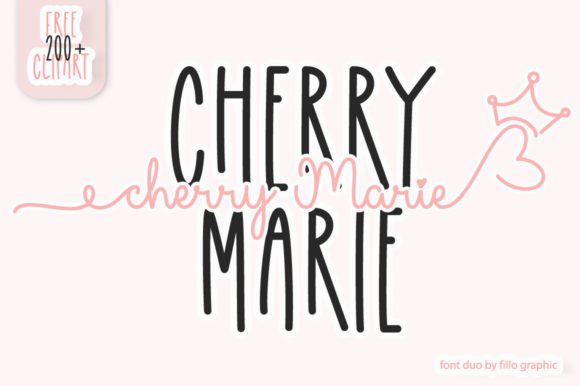
Introducing Cherry Marie Font, the ultimate font for digital display that will bring your design projects to life! Created by the talented Fillo Graphic, this font family is a game-changer in the world of typography.
Cherry Marie Font offers the perfect blend of elegance and versatility with its unique duo font design. Featuring both script and sans serif styles, this font allows you to experiment and create stunning compositions that will captivate your audience.
One of the standout features of Cherry Marie Font is its PUA encoding. This means that you can effortlessly access a wide range of incredible glyphs and ligatures, elevating your designs to a whole new level. Let your creativity run wild as you explore the endless possibilities this font offers.
Whether you're working on a website, social media graphics, branding materials, or any other digital project, Cherry Marie Font is the answer to all your font needs. Its eye-catching and stylish appearance will instantly grab attention and make a lasting impression on your audience.
Transform your designs into works of art with Cherry Marie Font's luxurious spark. With its captivating and emotional appeal, this font will evoke the perfect mood for your brand or message. From elegant invitations to stunning advertisements, this font will effortlessly elevate your designs and leave a lasting impact.